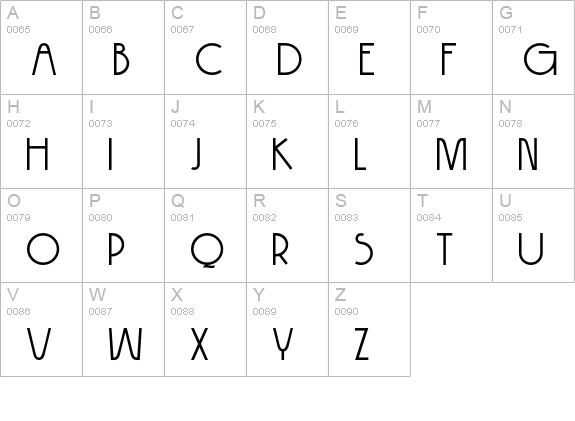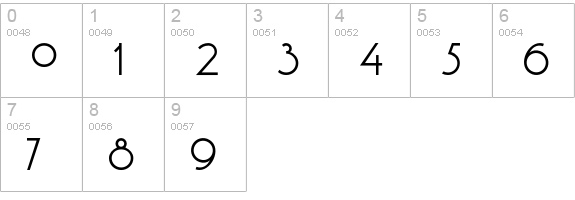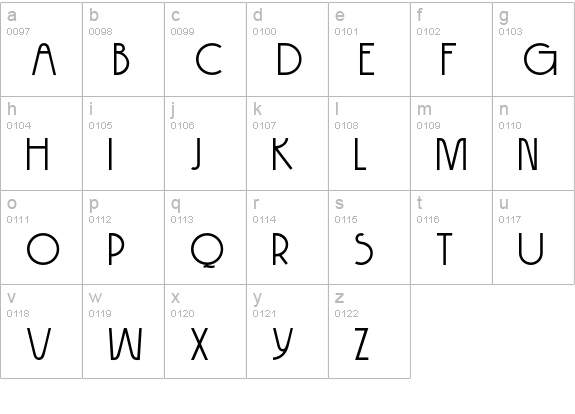
DK Hokitika Font Details
Introducing DK Hokitika, a stunning and versatile font that combines elegance with a touch of modernity. This exquisite typeface is perfect for adding a unique and sophisticated flair to any creative project. With its clean lines and graceful curves, DK Hokitika exudes a sense of elegance and refinement that is sure to captivate any audience. Whether used in print or digital designs, this font will effortlessly elevate your work to new heights. One of the most remarkable features of DK Hokitika is that it is available for free. Yes, you read that right! This exceptional font can be freely downloaded at FontsMarket.com, a trusted and reliable source for high-quality fonts. Whether you are a professional designer or a creative enthusiast, DK Hokitika offers endless possibilities. Its versatility makes it perfect for a wide range of applications, from logo design and branding to editorial layouts and social media graphics. The attention to detail in DK Hokitika is truly remarkable. Each character has been meticulously crafted to ensure a seamless and visually pleasing reading experience. The font's legibility and readability are second to none, making it an ideal choice for both large bodies of text and smaller captions. DK Hokitika comes in a variety of weights, allowing you to experiment and find the perfect balance for your design. From the delicate and refined Light weight to the bold and impactful Black weight, this font offers endless creative possibilities. So why wait? Discover the beauty and versatility of DK Hokitika today. Download it for free at FontsMarket.com and let your creativity soar to new heights.